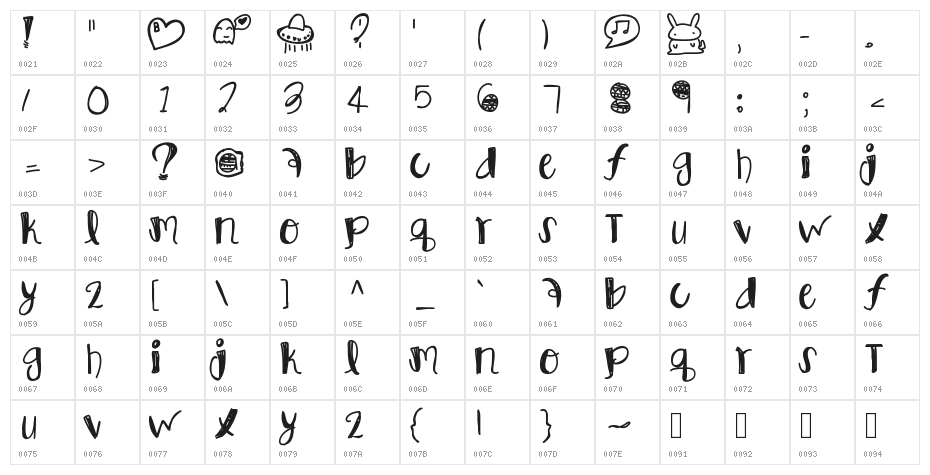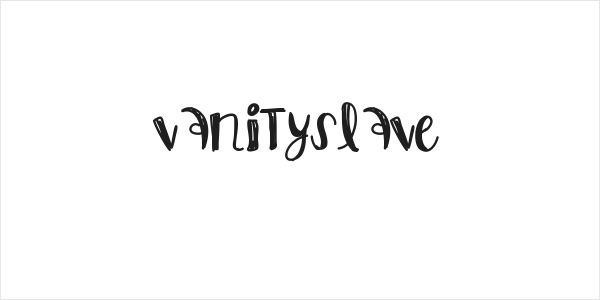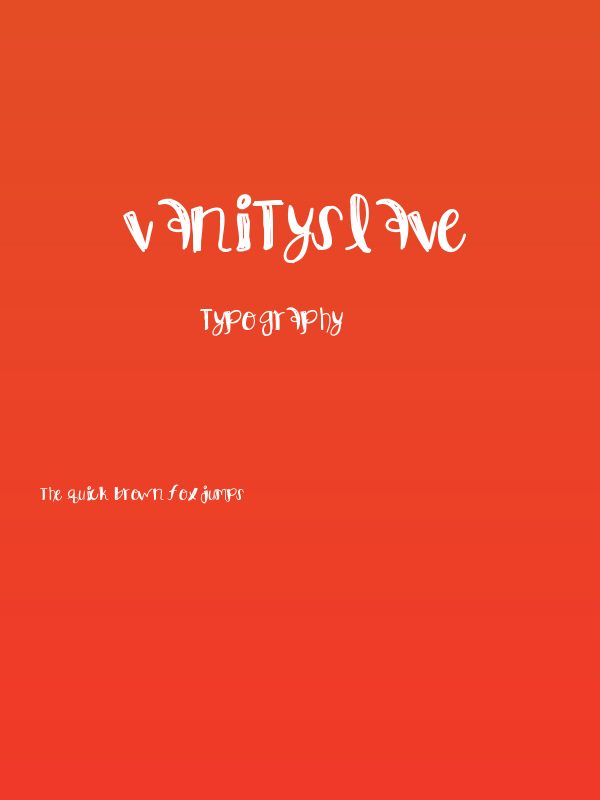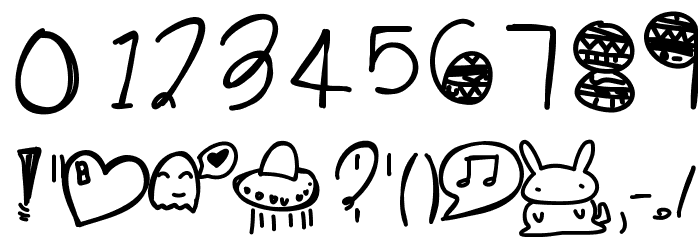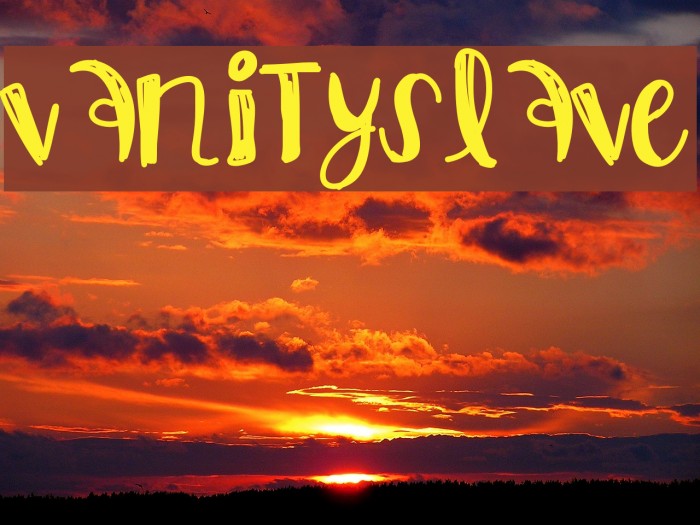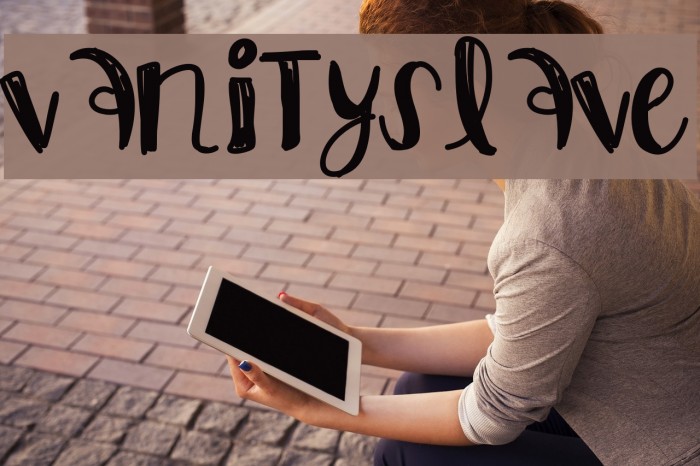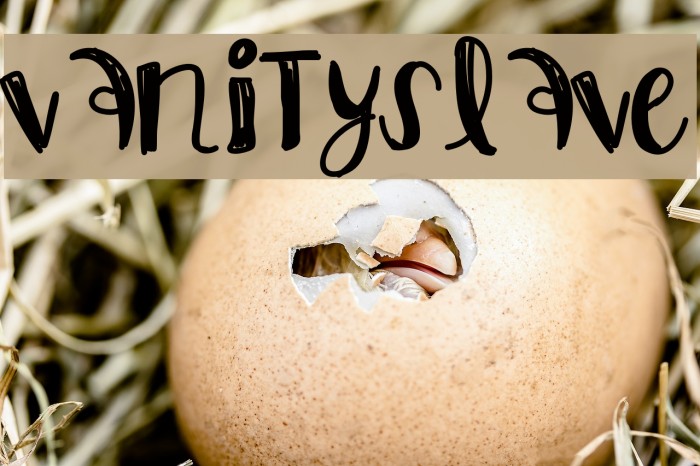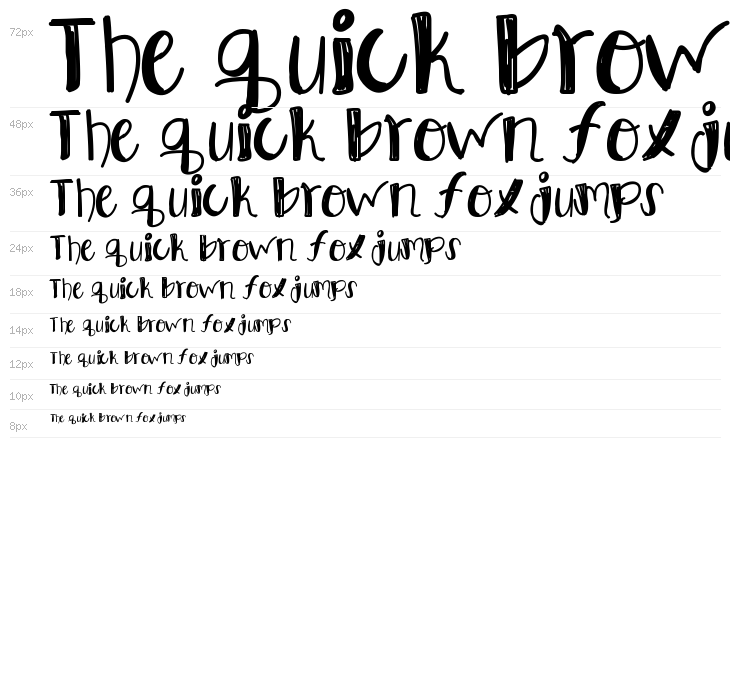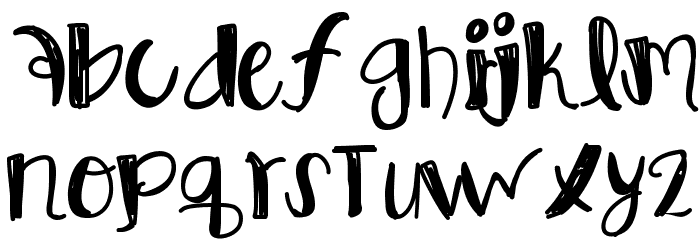
VanitySlave Font
VanitySlave Description
This playful and whimsical font features a handwritten style with a unique and artistic flair. The letters are characterized by their irregular shapes and varying stroke widths, giving them a dynamic and lively appearance. The uppercase and lowercase letters maintain a consistent style, with some letters featuring additional decorative elements such as loops and swirls. The numbers are equally playful, with some incorporating patterns or additional strokes. Special characters include a variety of quirky symbols, adding to the font's overall charm. This font exudes a sense of creativity and fun, making it ideal for projects that require a personal and informal touch.
| Proposed Projects | Ideal for greeting cards, children's books, playful branding, and creative posters. |